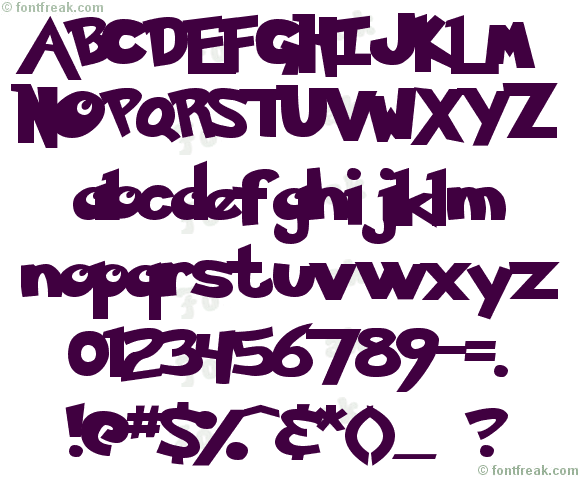
Pokemon Normal
The Pokemon font, created by Neale Davidson, is a distinctive display typeface that captures the whimsical essence of the beloved Pokémon franchise. As a decorative font, it showcases playful curves and an energetic flow that evoke a sense of adventure and nostalgia. The stroke weight is moderately bold, providing a strong presence that stands out in various applications. The characters exhibit a unique blend of rounded forms and sharp edges, giving them a dynamic and youthful appearance. The spacing is well-balanced, ensuring readability while maintaining the fun aesthetic.
This font is particularly suited for a variety of uses, including children's party invitations, merchandise for gaming events, and promotional materials for toy stores. Additionally, it can add character to website headers, social media graphics, and video game-related content, making it an excellent choice for content creators and small business owners in the gaming industry. Graphic designers will appreciate its versatility in creating eye-catching visuals that resonate with fans of all ages.
The target audience for the Pokemon font encompasses graphic designers, small business owners, and content creators who seek to infuse their projects with a sense of fun and adventure. Its unique style appeals to those looking to connect with a younger demographic or anyone with a fondness for the Pokémon universe.